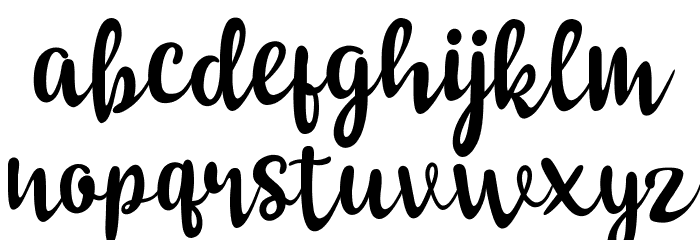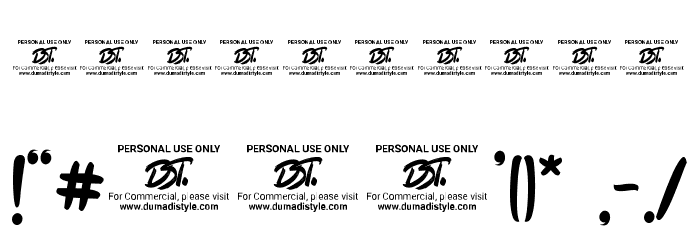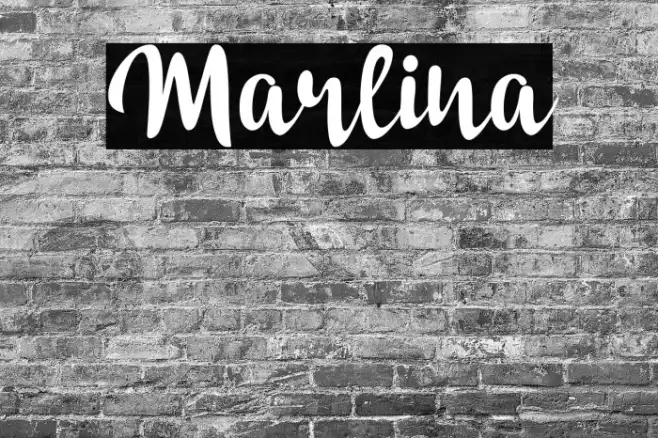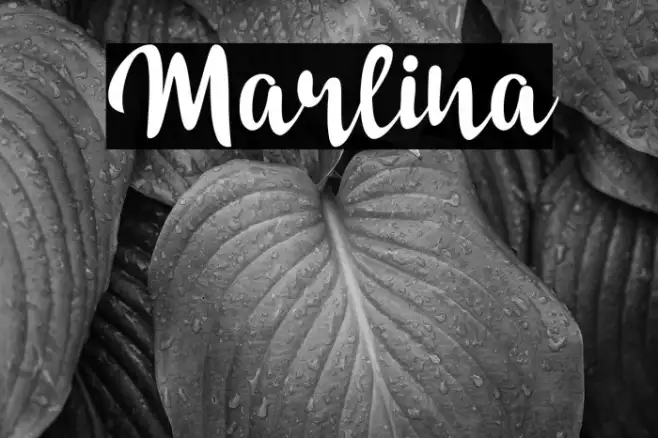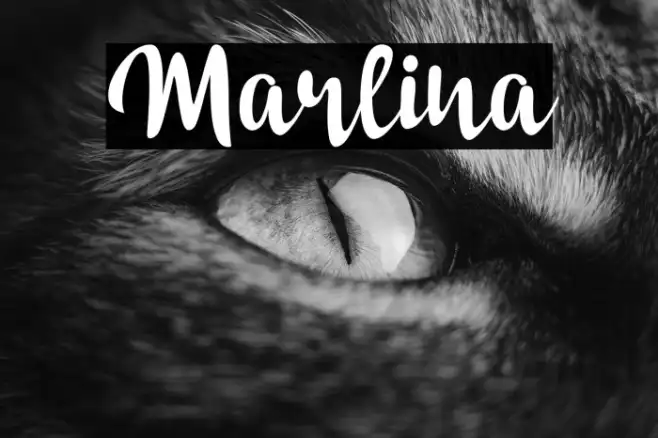
Marlina Font
This font features a bold, flowing script style with a modern touch. The characters are connected, creating a sense of continuity and elegance. The uppercase letters are slightly larger and more prominent, while the lowercase letters maintain a consistent flow. The numbers and special characters are designed to match the overall aesthetic, ensuring a cohesive look. This font is ideal for projects that require a personal, handwritten feel, such as invitations, greeting cards, or branding materials.
A bold, flowing script font with a modern, elegant style.
- Proposed Projects: Ideal for invitations, greeting cards, branding, and personal projects.
- Category: Script
- Use Case: Logos, Headlines, Decorative text